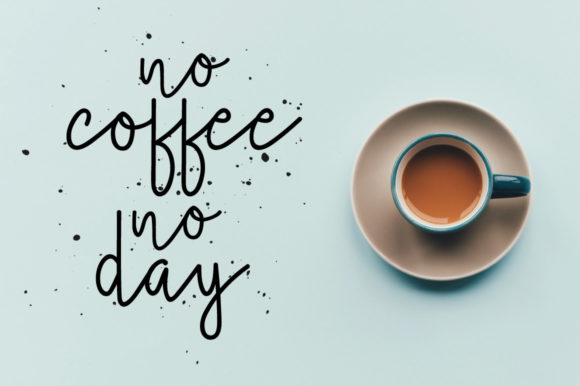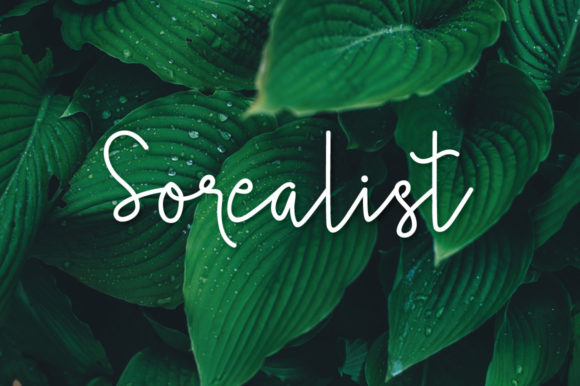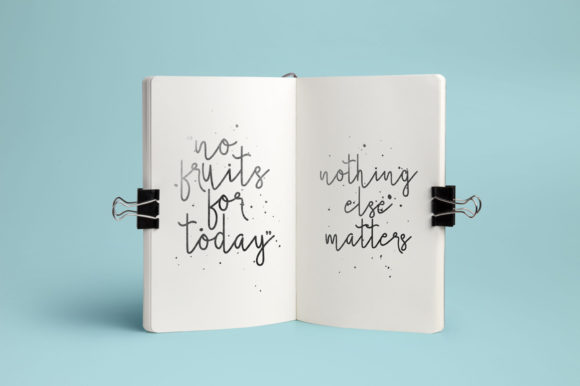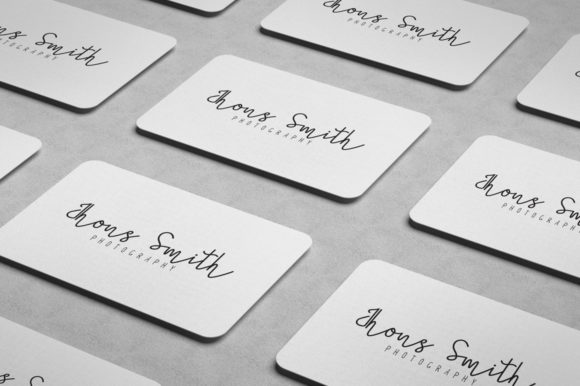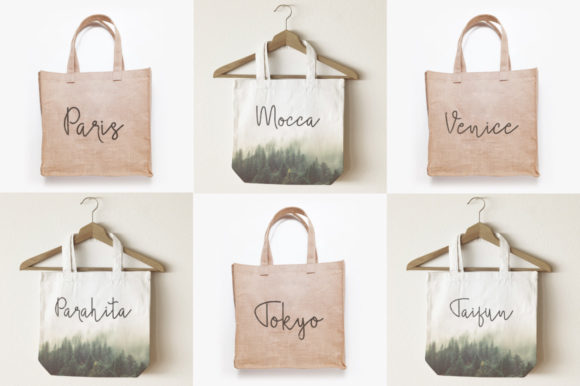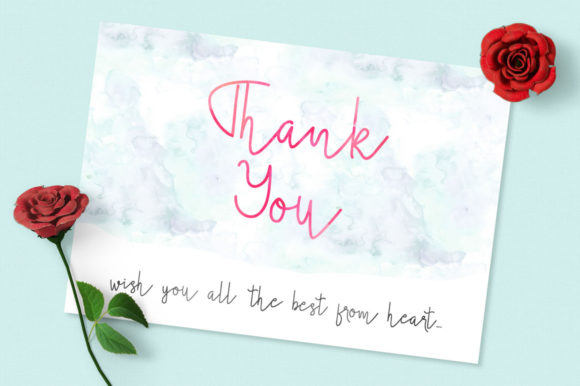
Discover the Elegance of Certainly Style Font: Elevate Your Design Projects
Are you on the hunt for a font that adds a touch of luxury and sophistication to your design projects? Look no further than Certainly Style Font, a beautiful light handwritten font that is sure to make your creations stand out. With its unique feel and stunning impact, Certainly Style is the perfect choice for designers and crafters looking to add a dash of elegance to their work.
What Makes Certainly Style Font So Special?
Certainly Style Font is a light handwritten font that boasts a distinctive and stylish aesthetic. Its delicate lines and curves give it a whimsical feel that’s both feminine and sophisticated. This font is perfect for a wide range of design projects, from wedding invitations and branding materials to social media graphics and blog posts.
Key Features of Certainly Style Font
- Unique and Handwritten: Certainly Style Font is a one-of-a-kind, handwritten font that adds a personal touch to any design project.
- Luxury and Sophistication: With its delicate lines and curves, Certainly Style Font exudes luxury and sophistication, making it perfect for high-end design projects.
- Light and Airy: The light weight of Certainly Style Font makes it easy to read and adds a sense of airiness to your designs.
- Versatile: Certainly Style Font can be used for a wide range of design projects, from digital to print.
How to Use Certainly Style Font in Your Design Projects
Using Certainly Style Font in your design projects is easy. Here are a few ideas to get you started:
- Wedding Invitations: Add a touch of elegance to your wedding invitations with Certainly Style Font.
- Branding Materials: Use Certainly Style Font to create luxurious branding materials, such as business cards and letterheads.
- Social Media Graphics: Add a dash of sophistication to your social media graphics with Certainly Style Font.
- Blog Posts: Use Certainly Style Font to add a touch of elegance to your blog posts and make them stand out.
Tips for Getting the Most Out of Certainly Style Font
Here are a few tips for getting the most out of Certainly Style Font:
- Pair it with Bold Fonts: Pair Certainly Style Font with bold fonts to create a striking contrast.
- Use it for Headings: Use Certainly Style Font for headings and titles to add a touch of elegance to your designs.
- Experiment with Colors: Experiment with different colors to find the perfect combination that complements Certainly Style Font.
In conclusion, Certainly Style Font is a beautiful light handwritten font that is sure to add a touch of luxury and sophistication to your design projects. With its unique feel and stunning impact, Certainly Style Font is the perfect choice for designers and crafters looking to elevate their designs. Whether you’re creating wedding invitations, branding materials, social media graphics, or blog posts, Certainly Style Font is sure to make your creations stand out.